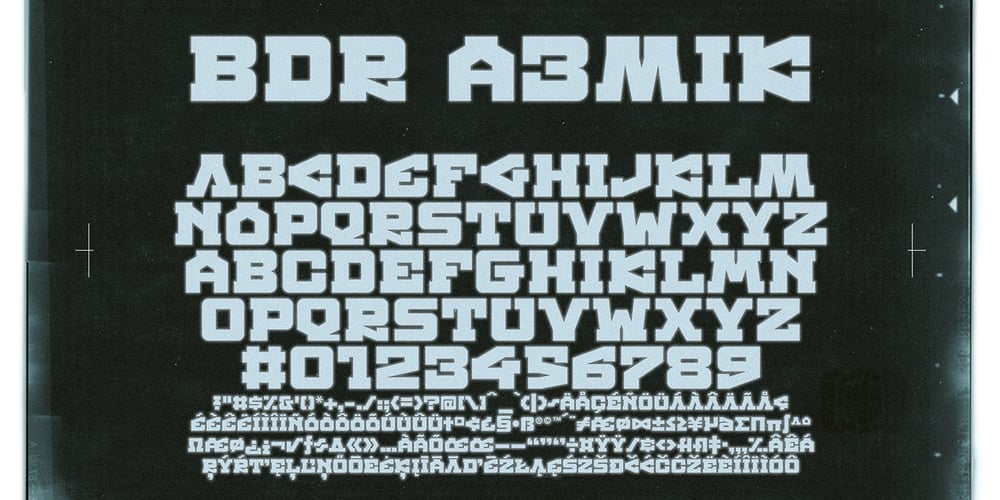
BDR A3MiK
BDR A3MiK font
BDR A3MiK Font Family was designed by Lorenz (Lopetz) Gianfreda and published by Typedifferent. BDR A3MiK contains 1 styles and family package options. The BDR A3MIK is an uppercase alphabet with alternatives including European/Eastern European, Russian Cyrillic, Greek and Japanese Katakana characters. Its strong, constructive, futuristic appearance works perfectly for titling in science fiction related media.